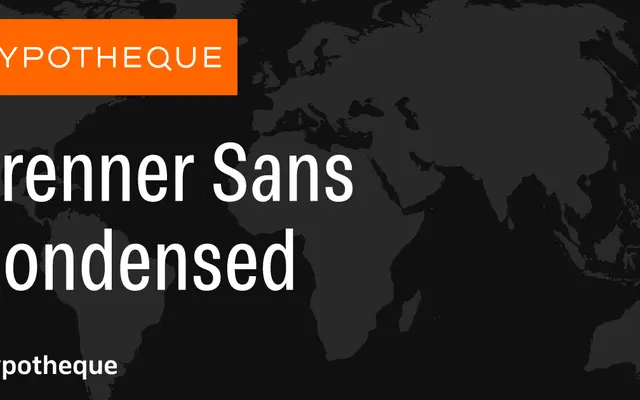
Brenner Sans Condensed
Brenner Sans Condensed specimen from Typotheque
The condensed width variant of Typotheque's Brenner Sans system, offering four weights with matching italics.
Part of the broader Brenner Sans family, the Condensed cut runs from Light to Bold with corresponding italics, sitting alongside the standard-width and variable siblings. City names are used as style identifiers throughout the system. Coverage is Latin, and the family is available individually per style or as part of the larger system.
Part of the Brenner Sans system, this is the condensed width variant of a grotesque sans-serif family, offered alongside a standard and variable sibling.